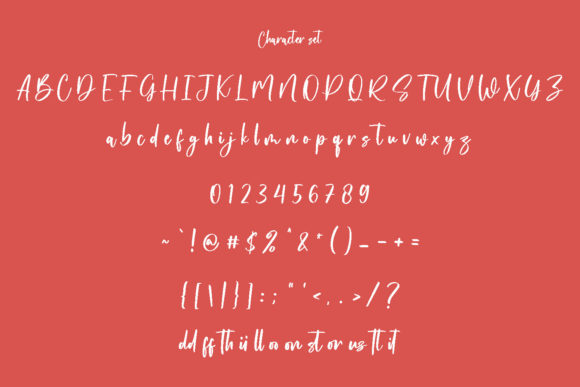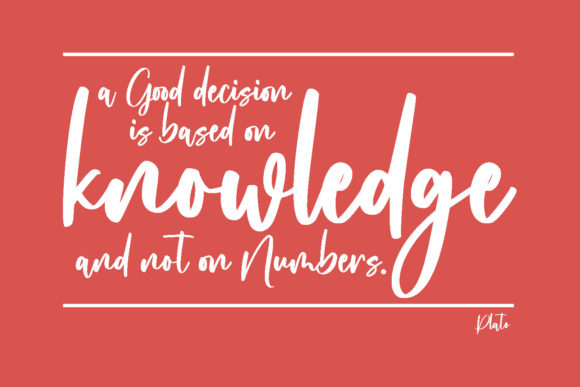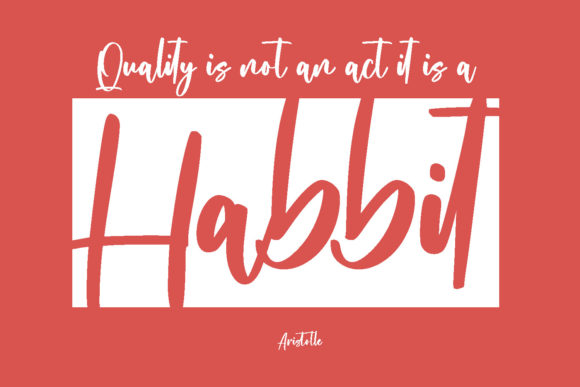
About Madymory Script Font
Madymory is a beautiful and modern script font featuring rough strokes, fun characters with a bit of ligature, and alternates to give you extra creative work. This font is good for logo design, Social media, Movie Titles, Books Titles, short text, even long text. It also works great for your secondary text together with a sans or serif.
Make stunning work with Madymory!